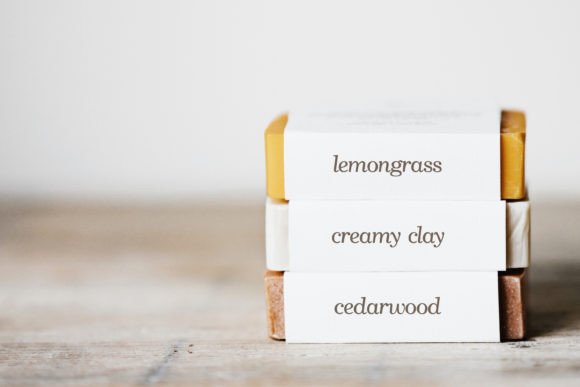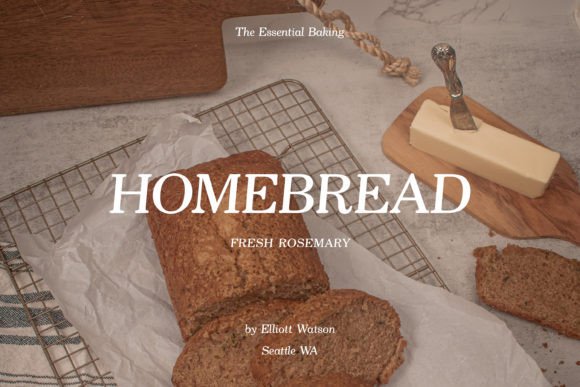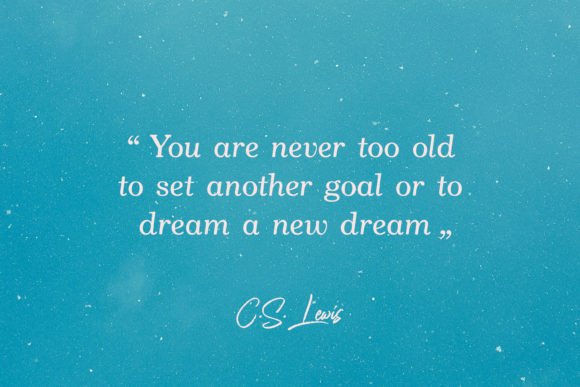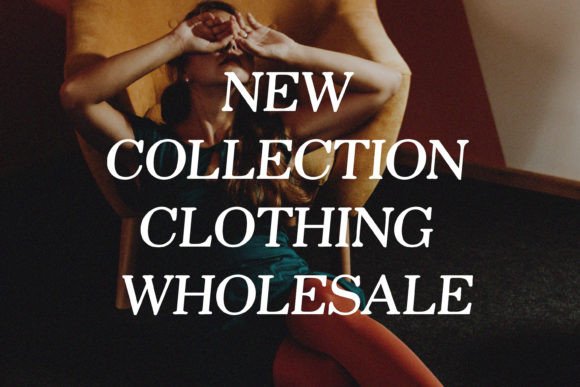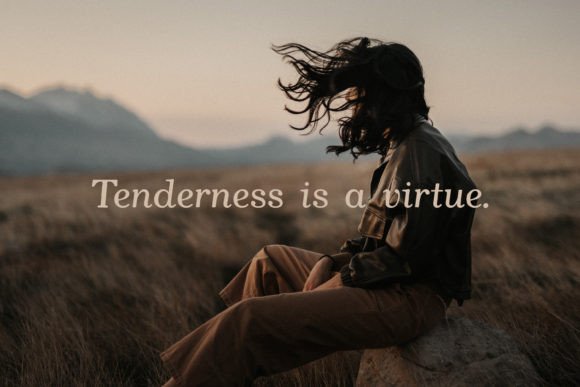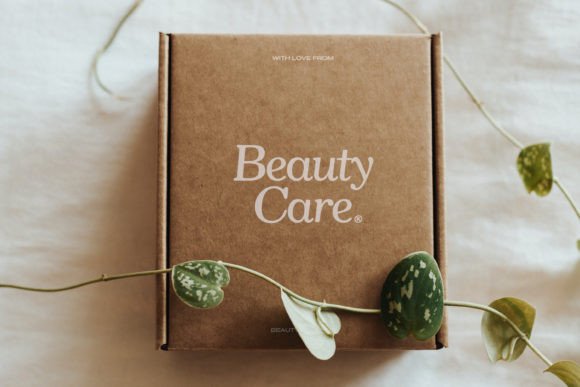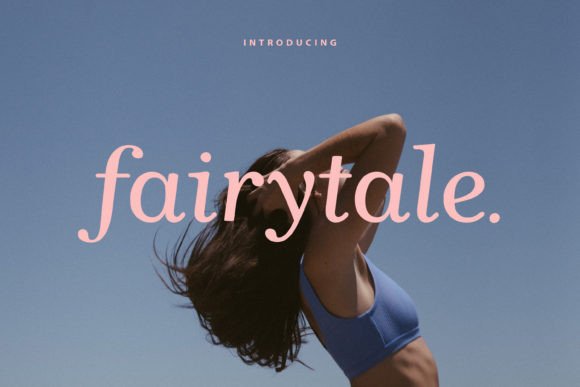
Introducing Fairytale Font: The Ultimate Choice for Designers and Crafters
Are you a designer or crafter looking for a font that can add a touch of magic to your projects? Look no further than Fairytale Font, an inspiring and friendly typeface that is sure to captivate your audience. With its smooth rounded letters and soft curves, Fairytale Font gives off a warm and inviting appearance that is perfect for a wide range of creative endeavors.
The Characteristics of Fairytale Font
Fairytale Font is a carefully crafted typeface that boasts a number of distinctive characteristics. Its smooth rounded letters are designed to be easy on the eyes, while its soft curves add a touch of elegance and sophistication. The font’s warm and inviting appearance makes it perfect for use in a variety of projects, from children’s books and educational materials to branding and advertising campaigns.
The Benefits of Using Fairytale Font
So why should you choose Fairytale Font for your next project? For starters, its unique and captivating design is sure to grab the attention of your audience and leave a lasting impression. Additionally, the font’s friendly and approachable appearance makes it perfect for use in projects that require a personal touch, such as handmade crafts and DIY tutorials.
Fairytale Font is a versatile typeface that is perfect for use in a wide range of creative projects. Whether you’re a designer looking to add a touch of whimsy to your branding and advertising campaigns, or a crafter looking to create handmade cards and gifts, Fairytale Font is the perfect choice. Its smooth rounded letters and soft curves make it easy to read and understand, while its warm and inviting appearance adds a touch of personality to any project.
Using Fairytale Font in Your Projects
So how can you use Fairytale Font in your projects? The possibilities are endless! Here are a few ideas to get you started:
- Use Fairytale Font to create handmade cards and gifts for special occasions, such as birthdays and holidays.
- Add a touch of magic to your branding and advertising campaigns with Fairytale Font.
- Use Fairytale Font to create educational materials, such as worksheets and activity sheets, for children.
- Incorporate Fairytale Font into your DIY tutorials and crafting projects, such as knitting and sewing patterns.
Tips for Getting the Most Out of Fairytale Font
Here are a few tips for getting the most out of Fairytale Font:
- Experiment with different colors and textures to add depth and interest to your projects.
- Use Fairytale Font in combination with other fonts and design elements to create a unique and eye-catching look.
- Don’t be afraid to get creative and try new things – Fairytale Font is a versatile typeface that can be used in a wide range of projects.
| Font Name | Fairytale Font |
| Author | elvinova |
In conclusion, Fairytale Font is an inspiring and friendly typeface that is perfect for designers and crafters looking to add a touch of magic to their projects. With its smooth rounded letters and soft curves, Fairytale Font gives off a warm and inviting appearance that is sure to captivate your audience. Whether you’re creating handmade cards and gifts, branding and advertising campaigns, or educational materials, Fairytale Font is the perfect choice.